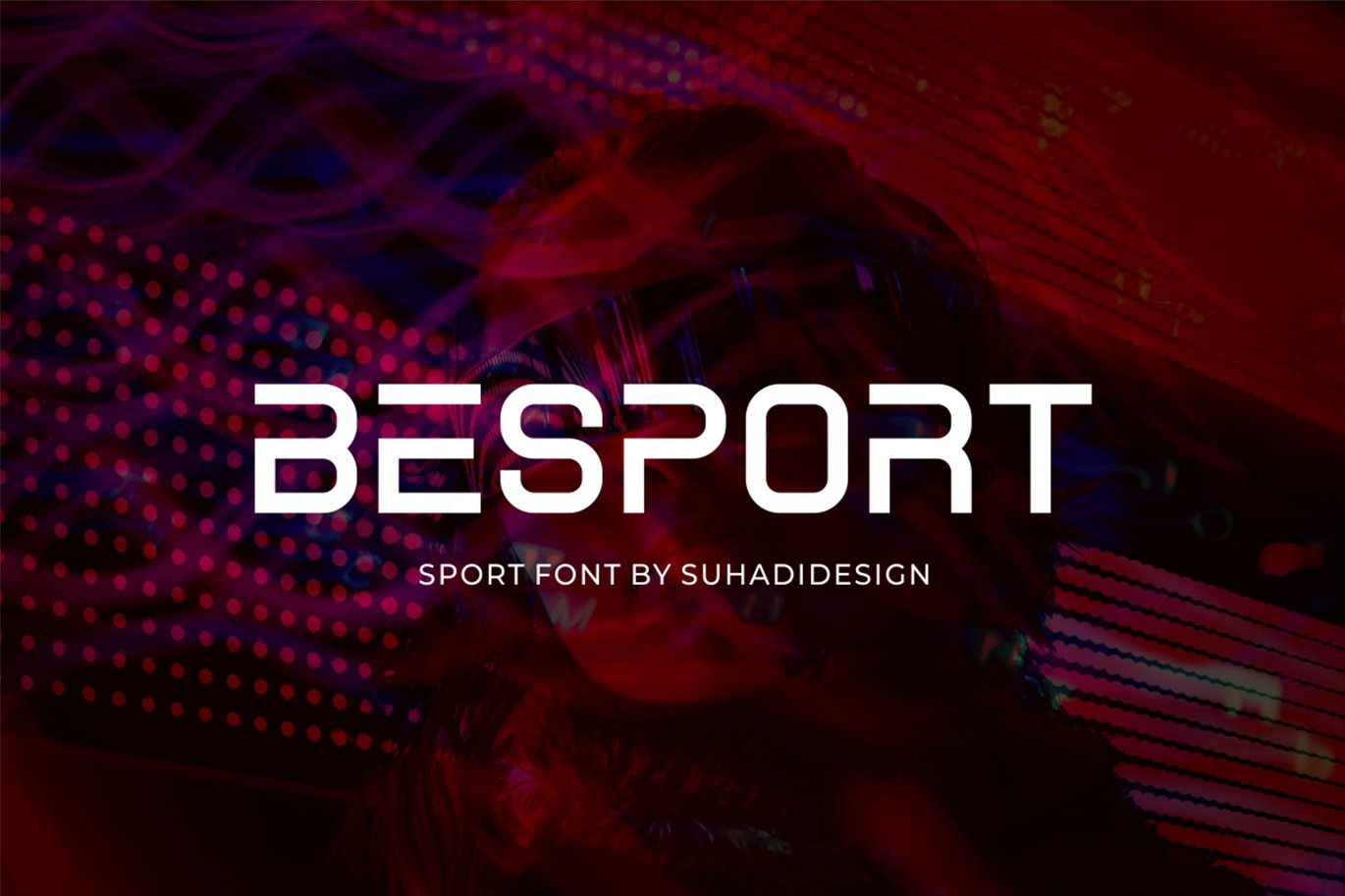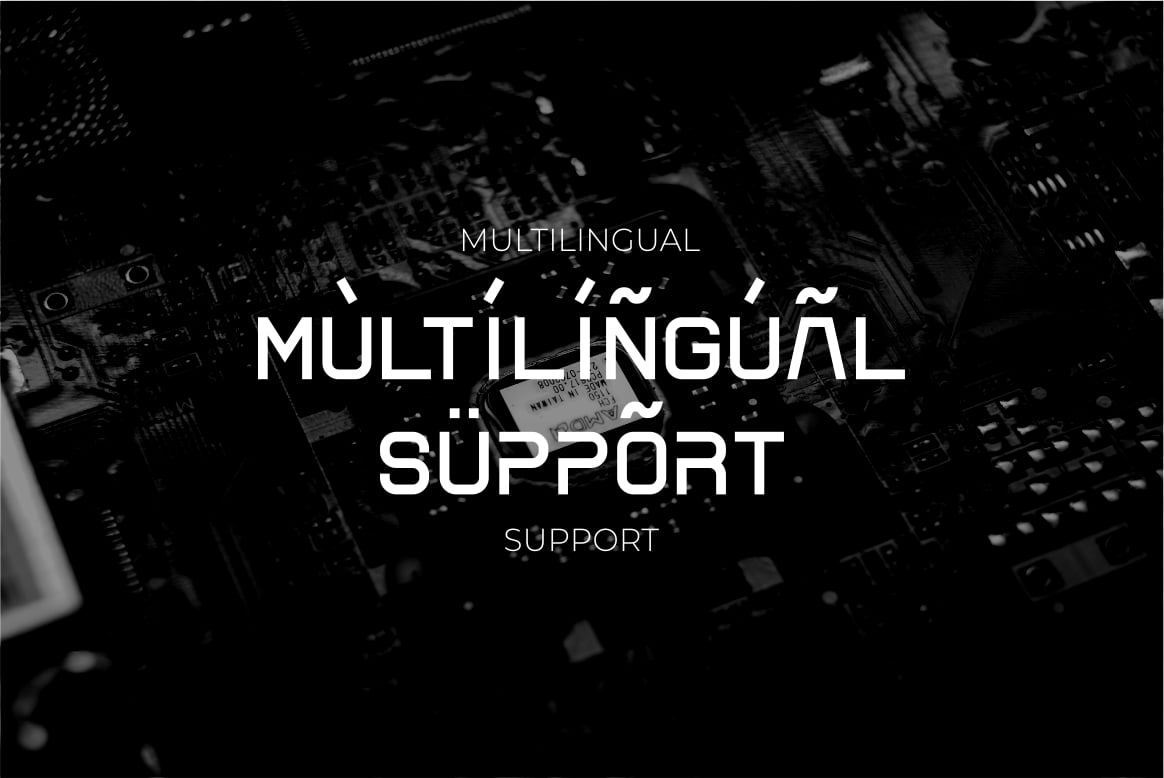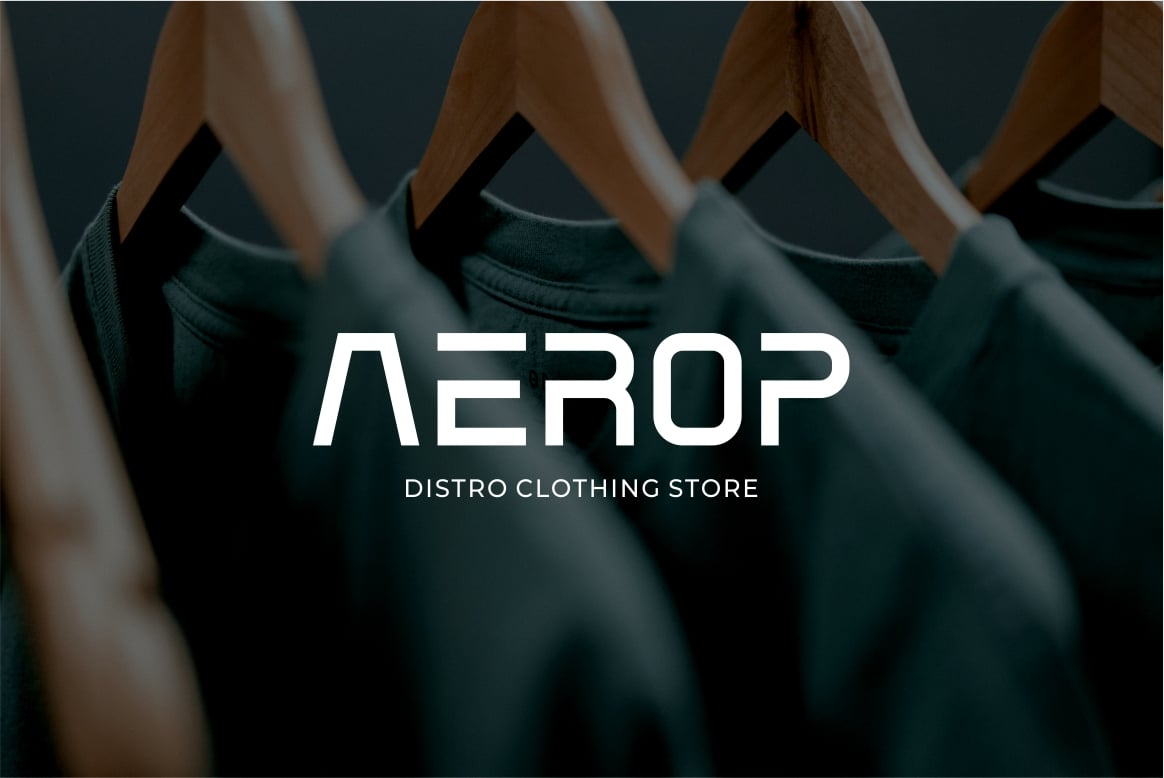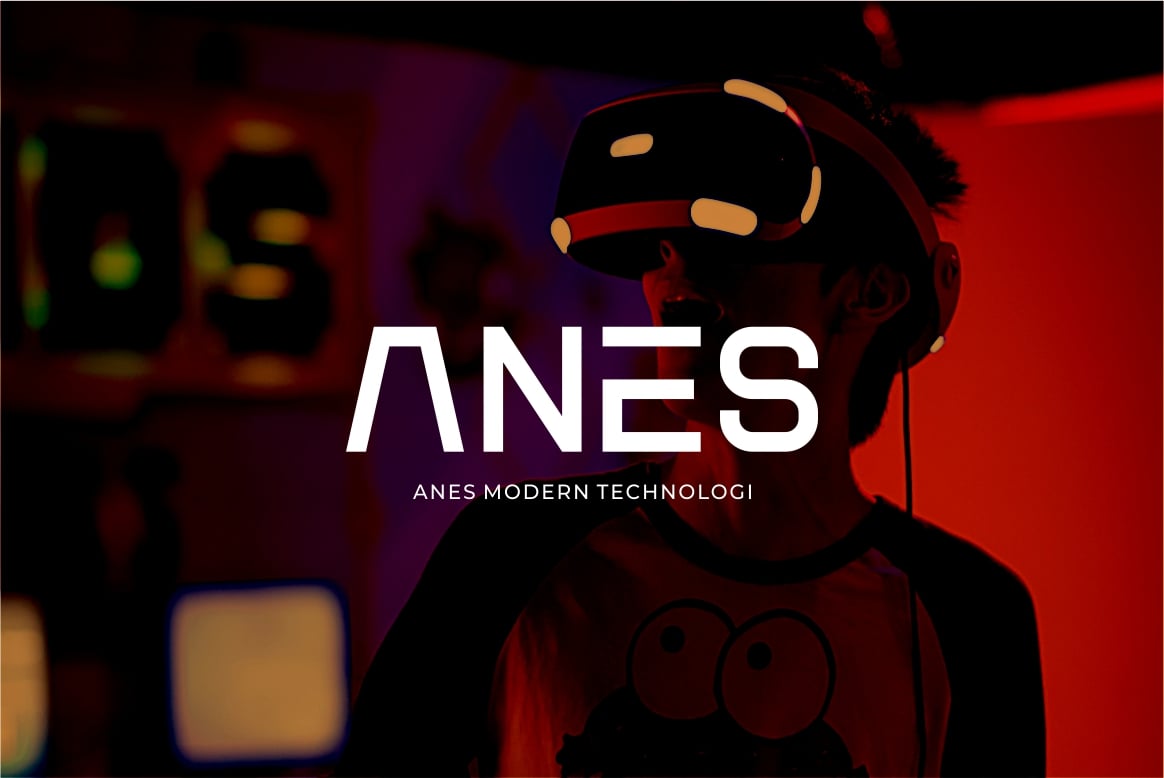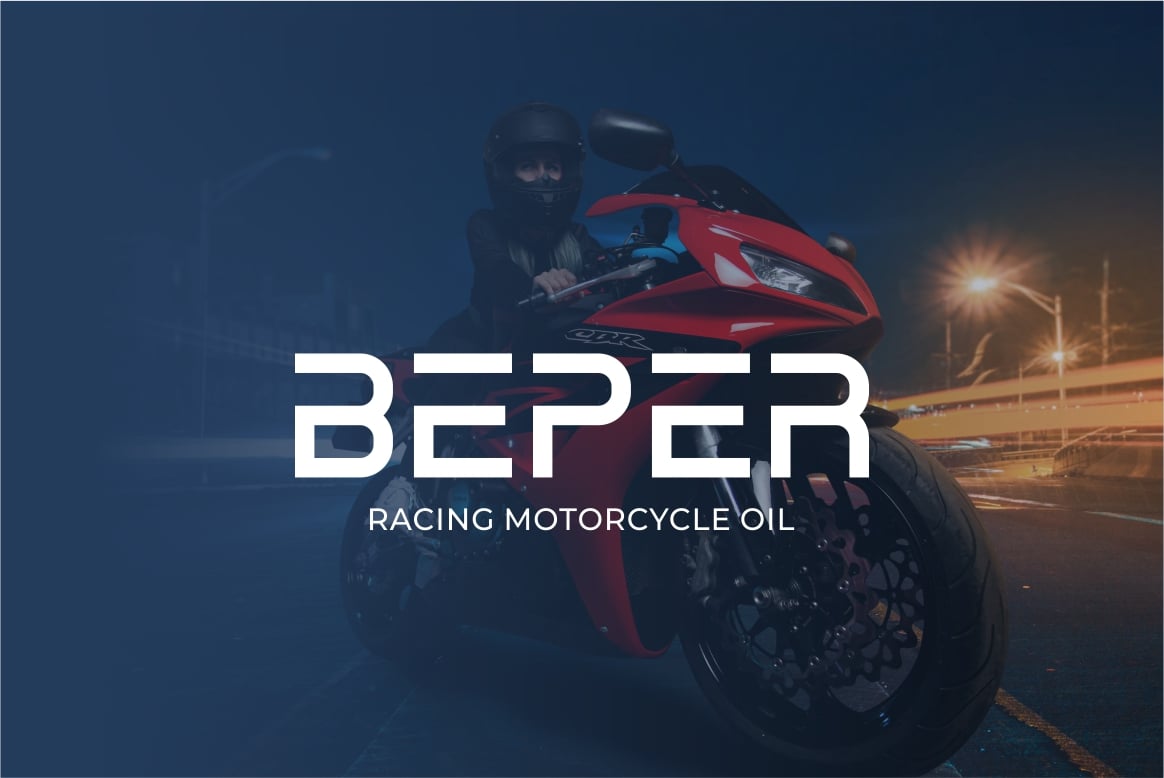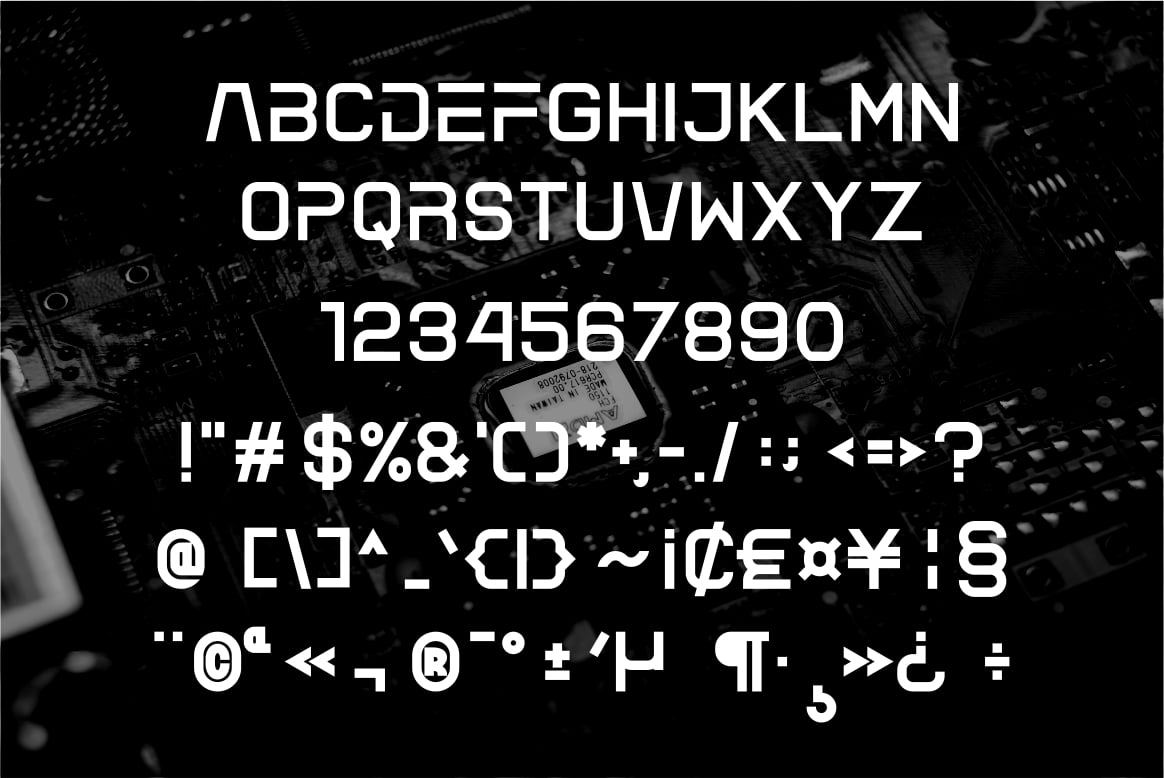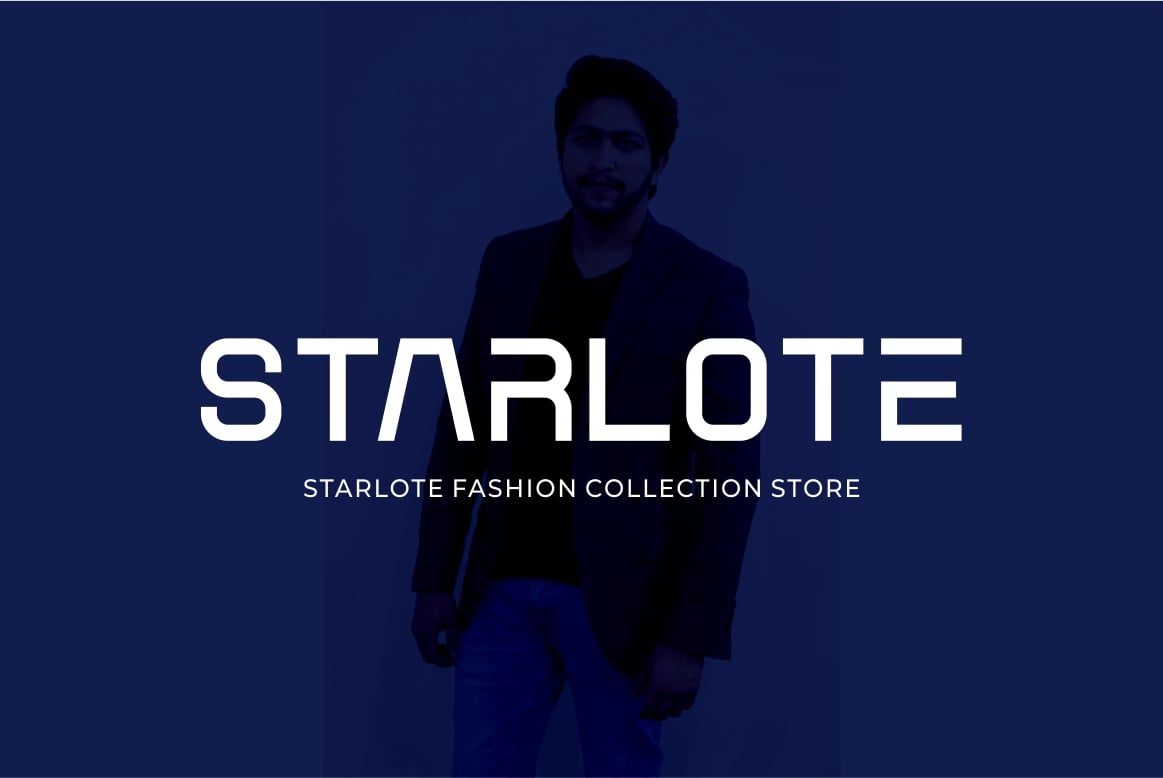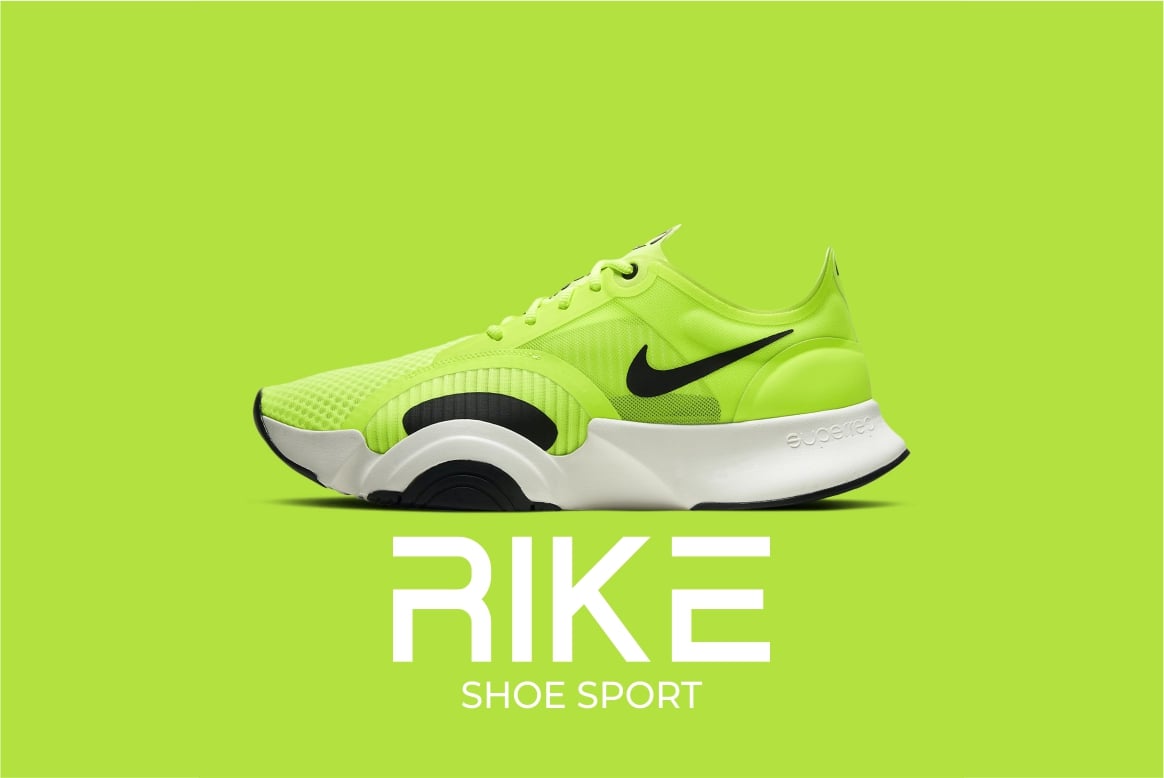
Besport – Sport logo font
According to market demand, fonts tend to be modern, simple and trendy styles, so I decided to make a sports font for the logo that you have in mind. Besport font is a logo font that is modern at any time and very popular, comes with a modern style to be able to become a favorite by the market. We keep this font looking elegant, classy, modern, stylish, modern, and easy to use. Besport Font is the right choice for logos, brands, company names, flight, rocket, scifi, mars, dj font, fashion, food menus, brand names, branding, brands, quotes, album covers, and other projects. Besport fonts are here to take your designs to the next level.
Besport Font is my new sixteenth Font created in 2022
Font Features:
• All caps
• Multilingual support
• Numeric and punctuation